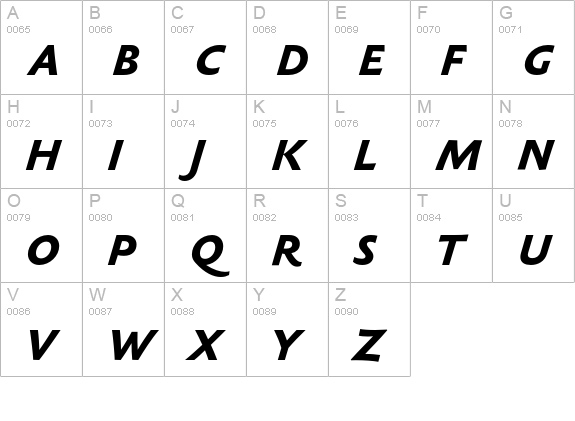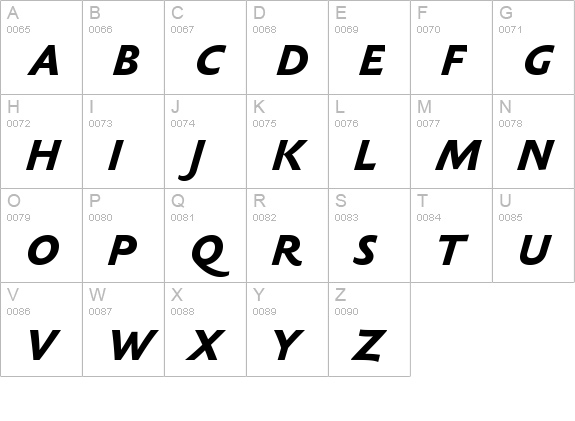
Sebastian Medium Pro Bold Italic Font Details
Sebastian Medium Pro Bold Italic is a balanced, medium-weight, italic variant in the Sebastian typeface family \xE2\x80\x94 well suited to sub-headlines, navigation, and balanced editorial work.
Sebastian Medium Pro Bold Italic font is a striking and versatile typeface that effortlessly combines elegance with a touch of modernity. Its bold and italic design adds an authoritative and sophisticated look to any project, making it perfect for headlines, branding, and editorial designs. This font exudes confidence and professionalism, allowing you to make a bold statement while still maintaining a sense of refinement. The bold strokes and slanted italics create a dynamic and eye-catching visual impact, making your designs stand out from the crowd. Sebastian Medium Pro Bold Italic font is meticulously crafted with attention to detail, ensuring legibility and readability in both print and digital mediums. Its clean and crisp letterforms guarantee a seamless reading experience, making it suitable for a wide range of applications. And the best part is, Sebastian Medium Pro Bold Italic font is available for free download at FontsMarket.com! This means that you can effortlessly enhance your projects with this stunning typeface without breaking the bank. Whether you are a professional designer or a hobbyist, this font offers accessibility and affordability, making it a valuable addition to your font library. So why wait? Unlock the full potential of your designs with Sebastian Medium Pro Bold Italic font. Download it for free at FontsMarket.com and witness the transformation it brings to your creative endeavors. Embrace the power of this elegant and commanding typeface today!